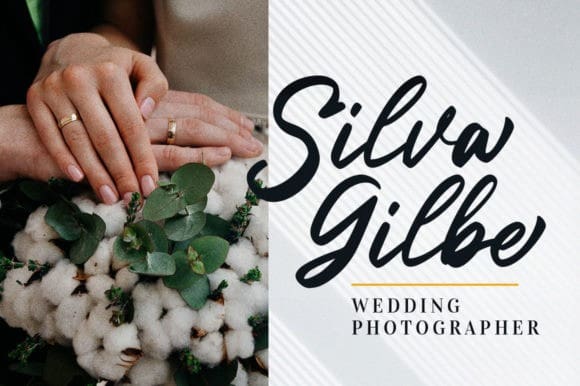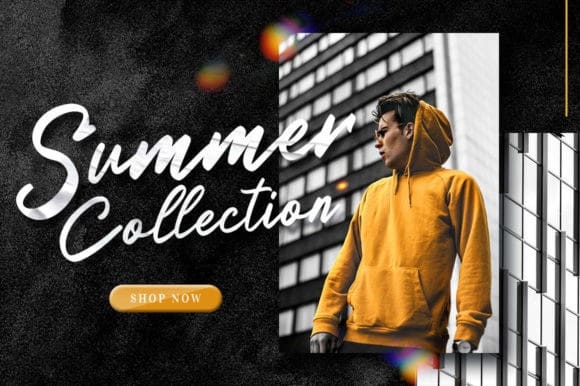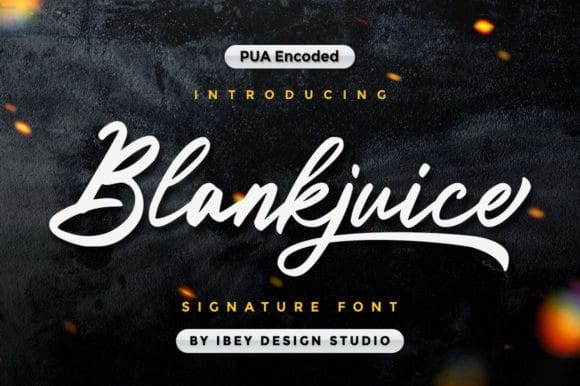
Blankjuice Script Font
Blankjuice Script Font is a signature font that lets you achieve a customized feeling. Get inspired by its classic style. This font is PUA encoded which means you can access all of the glyphs and swashes with ease!